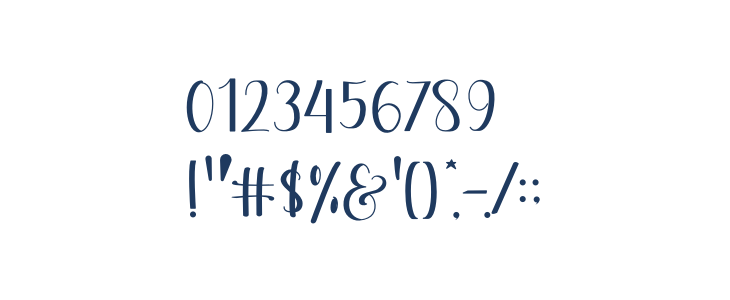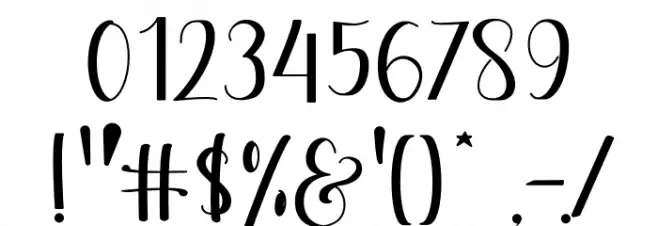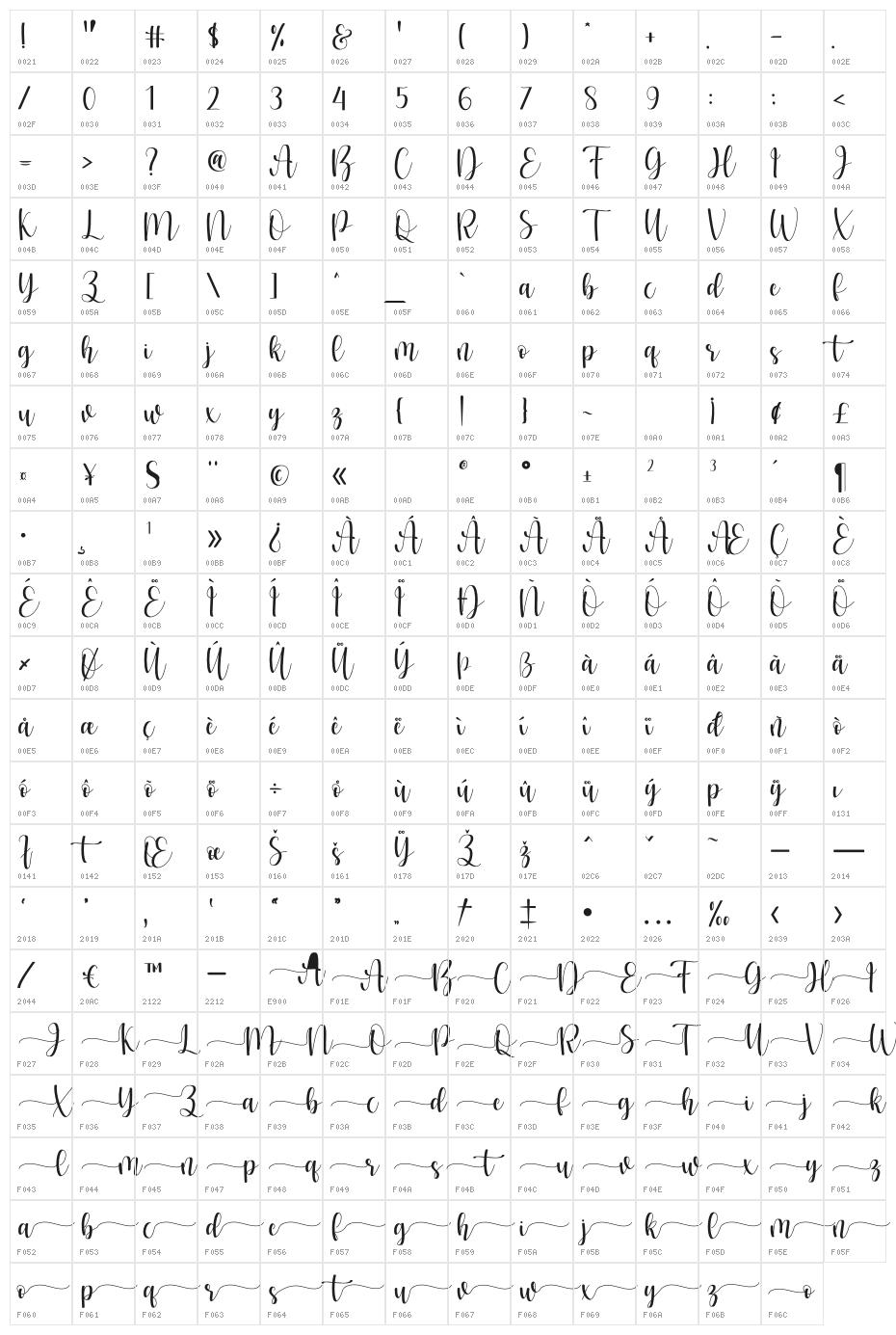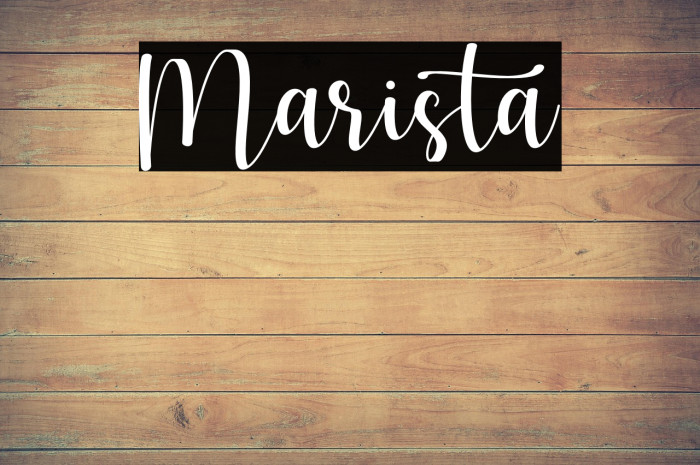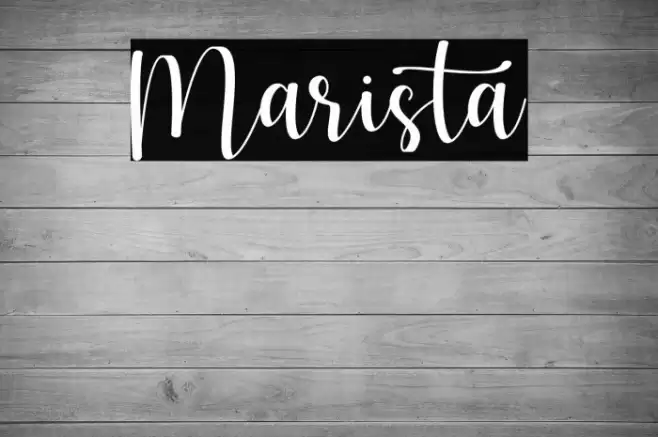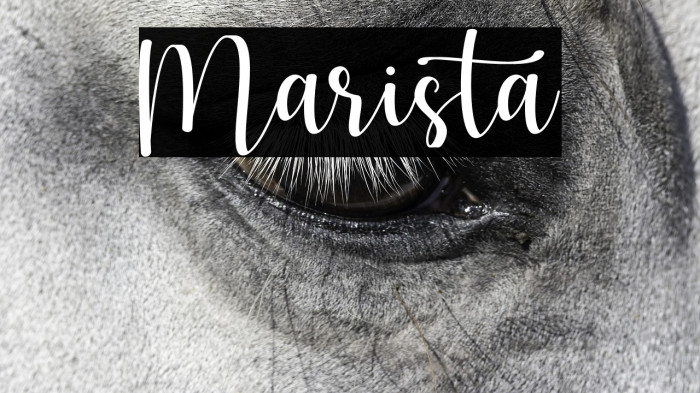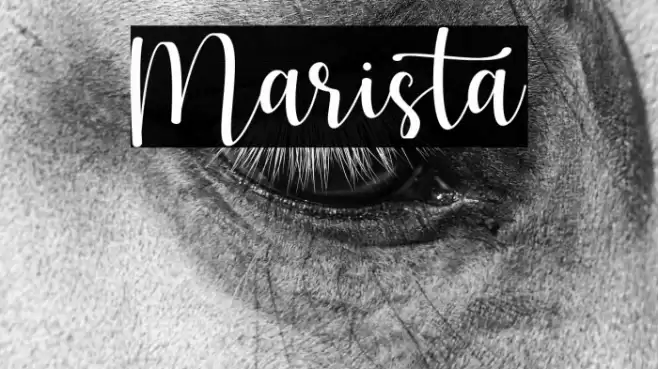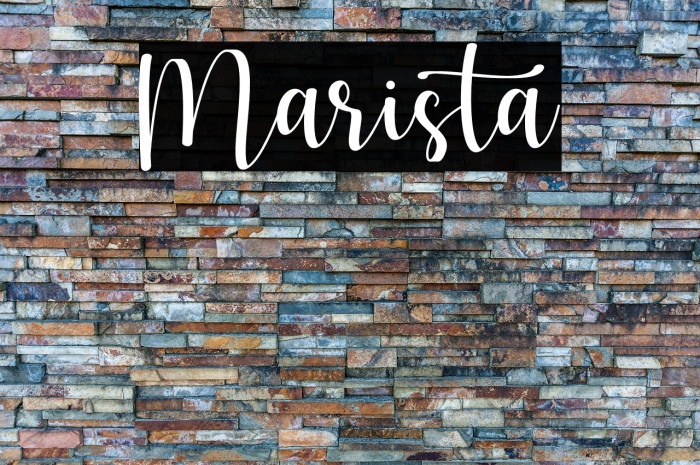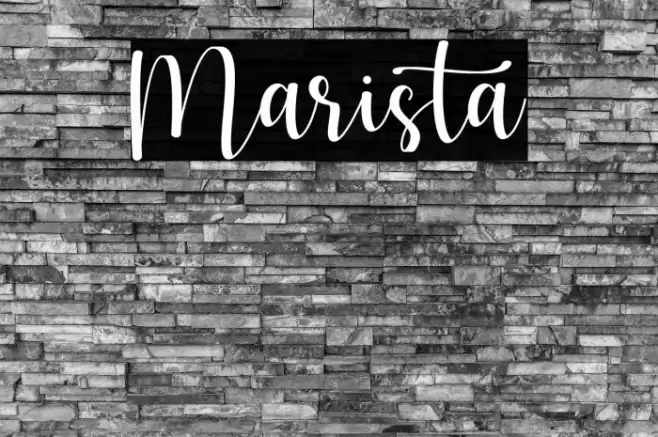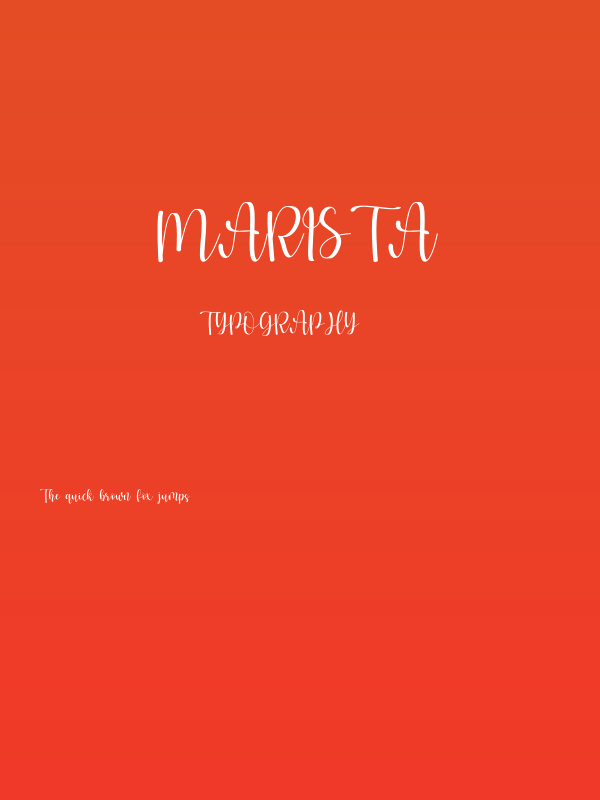
Marista Font
Marista Description
This font features an elegant and flowing script style, characterized by its smooth, cursive strokes and graceful curves. The uppercase letters exhibit a sophisticated flair with extended loops and swashes, while the lowercase letters maintain a consistent fluidity, enhancing readability. The numerals and special characters are designed to complement the overall aesthetic, adding a touch of refinement. This font's artistic nature makes it ideal for projects that require a personal and stylish touch.
Use CaseLogos, Invitations, Decorative text
Proposed ProjectsIdeal for wedding invitations, greeting cards, branding, and logo design.